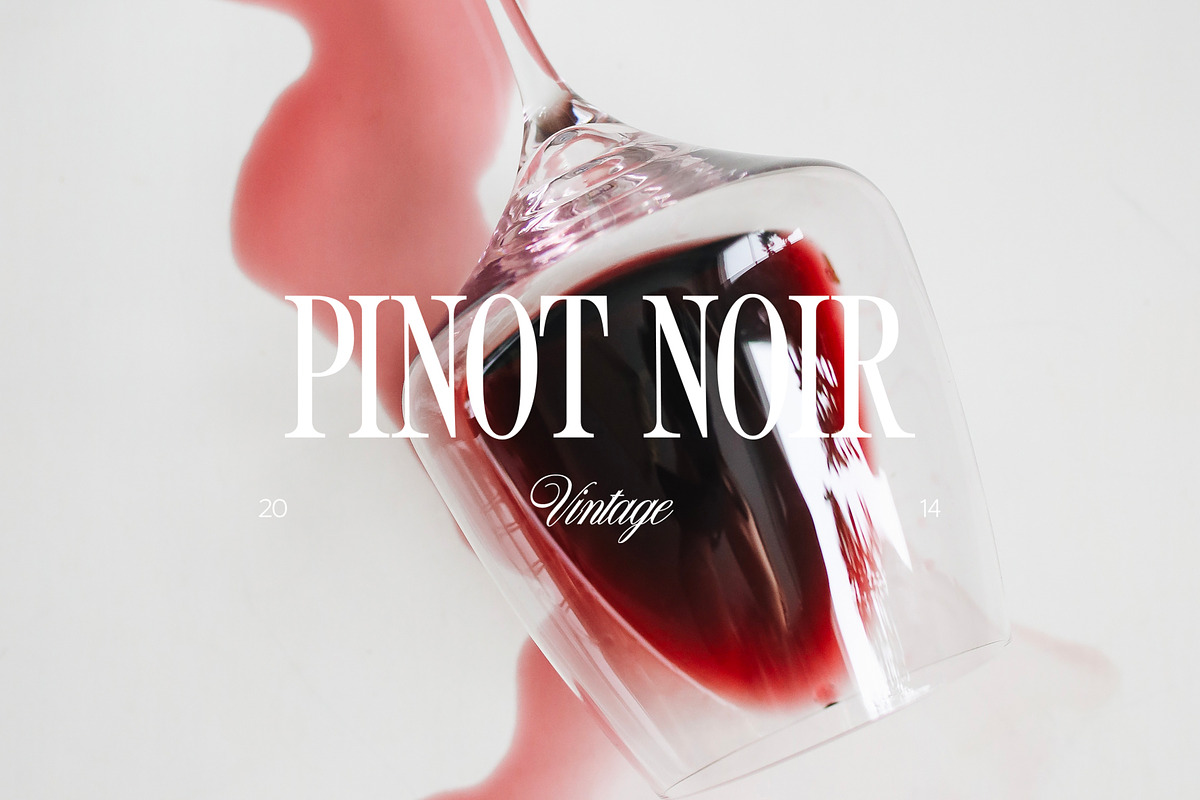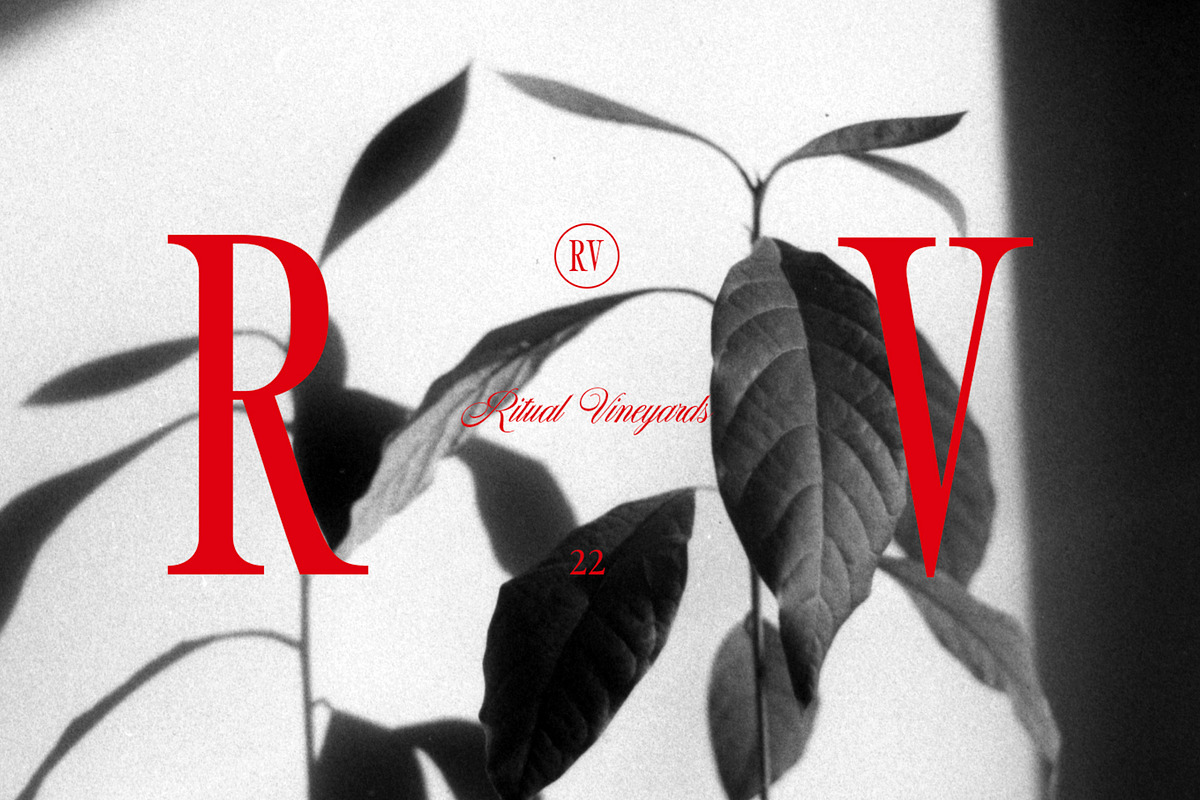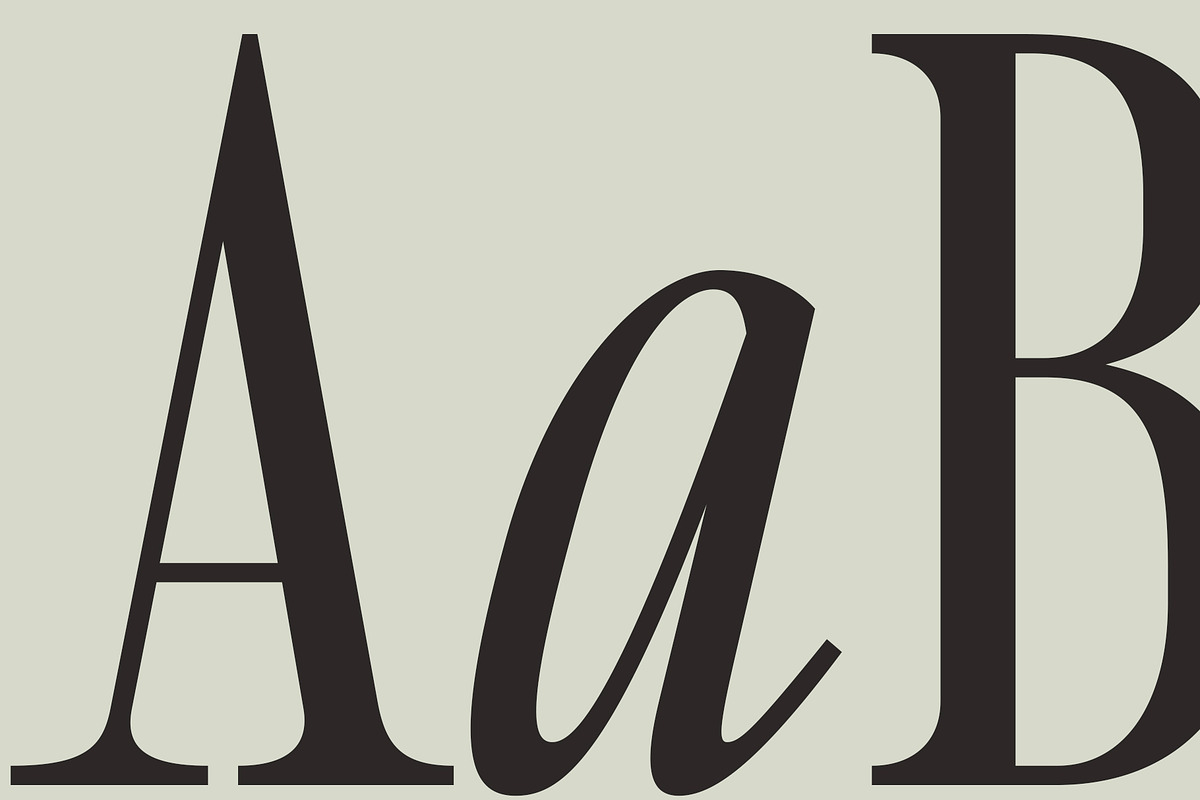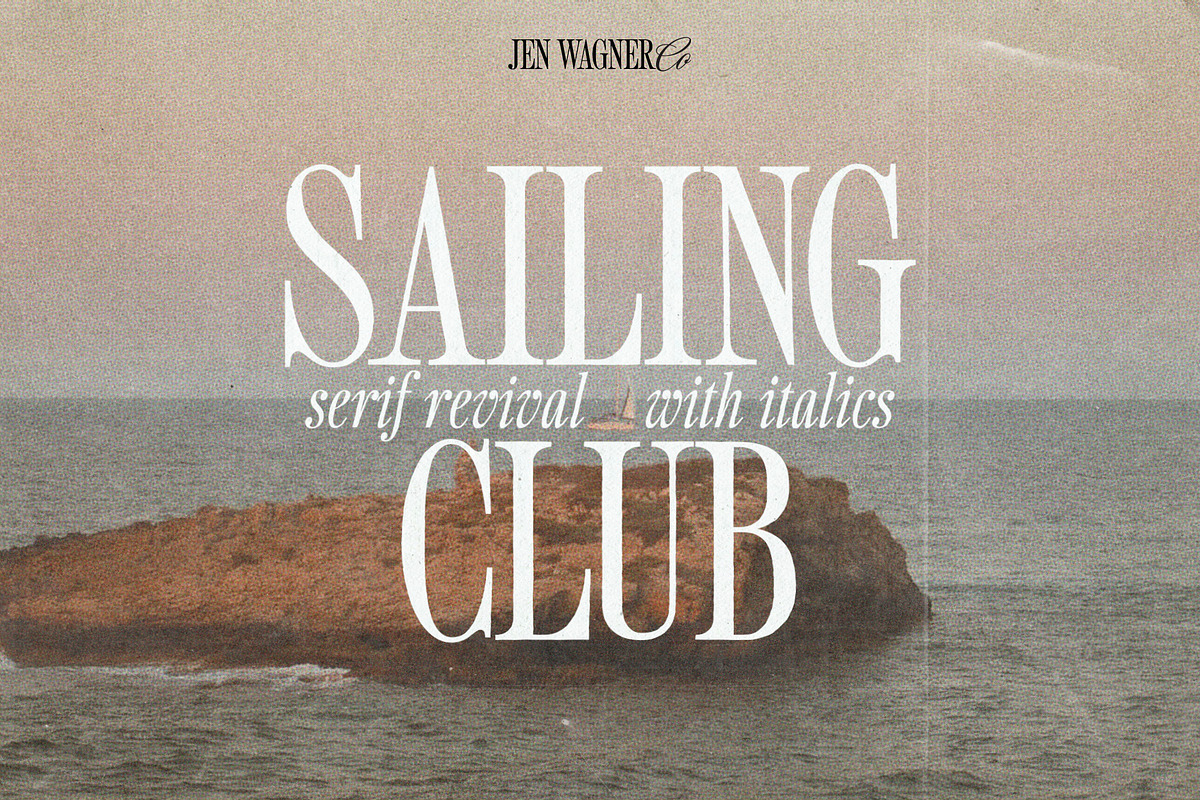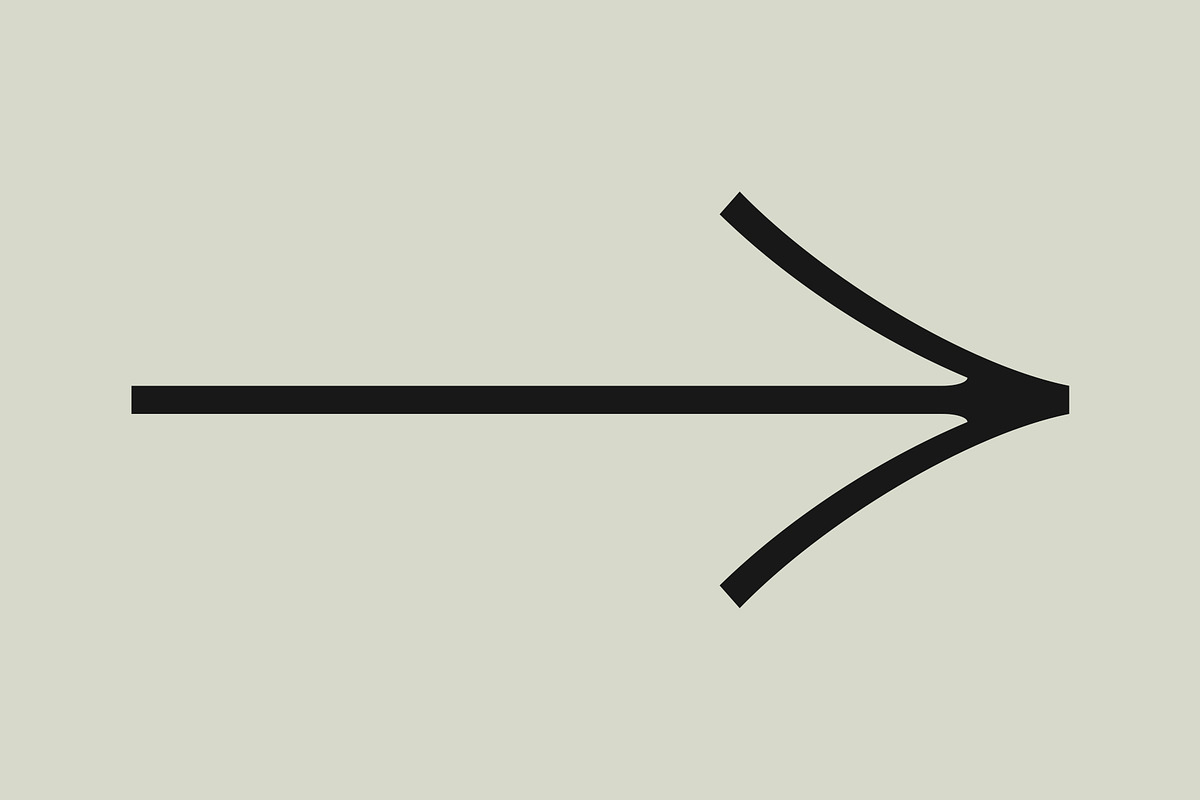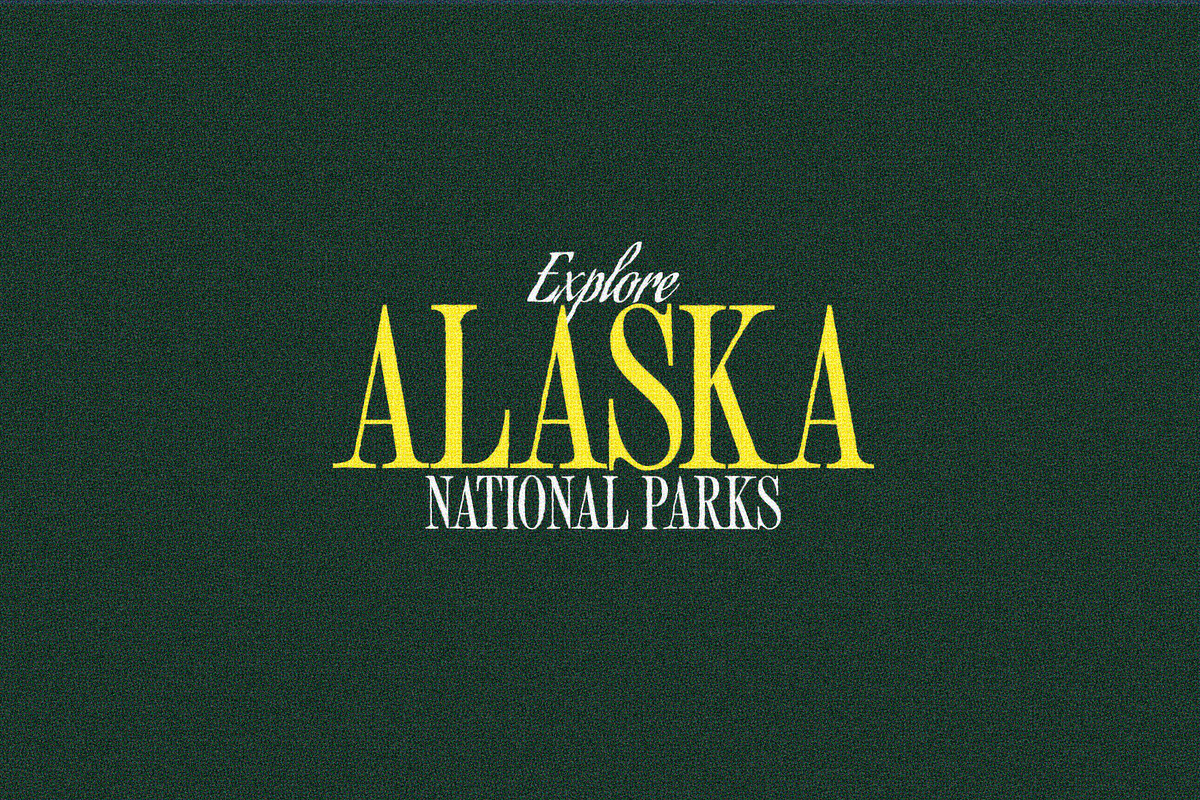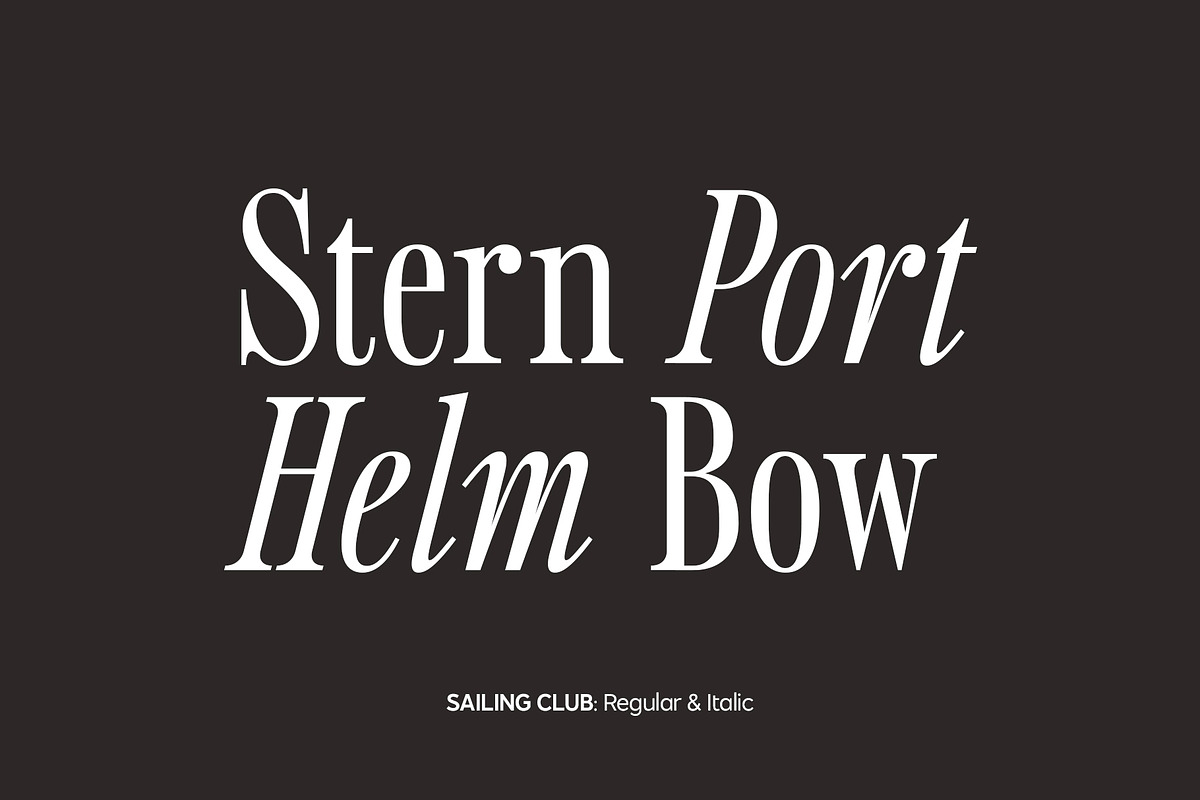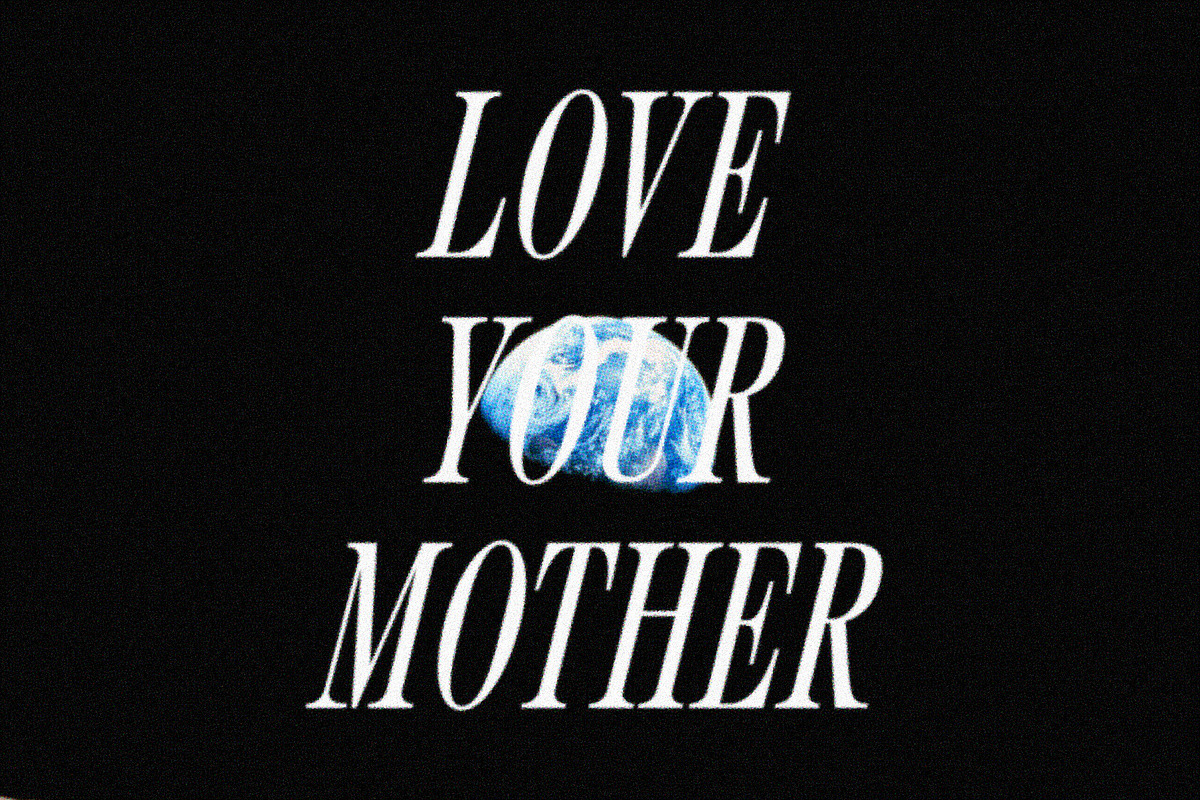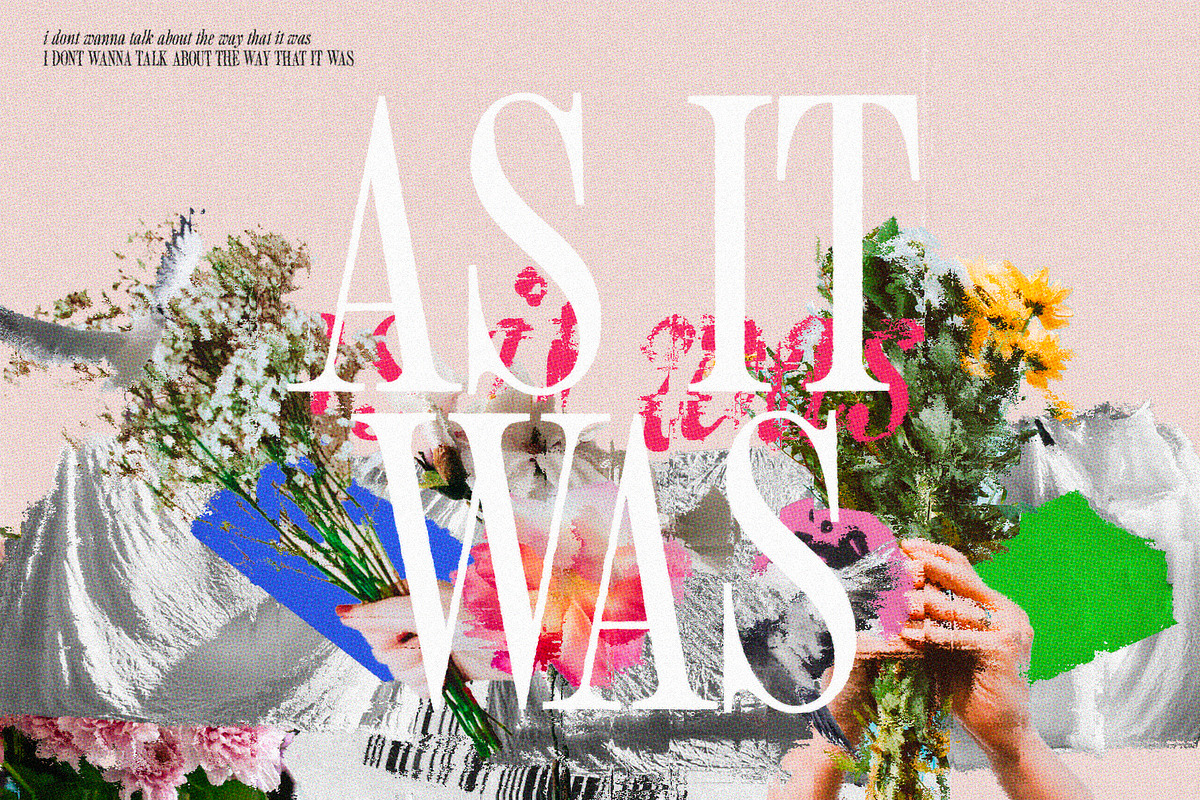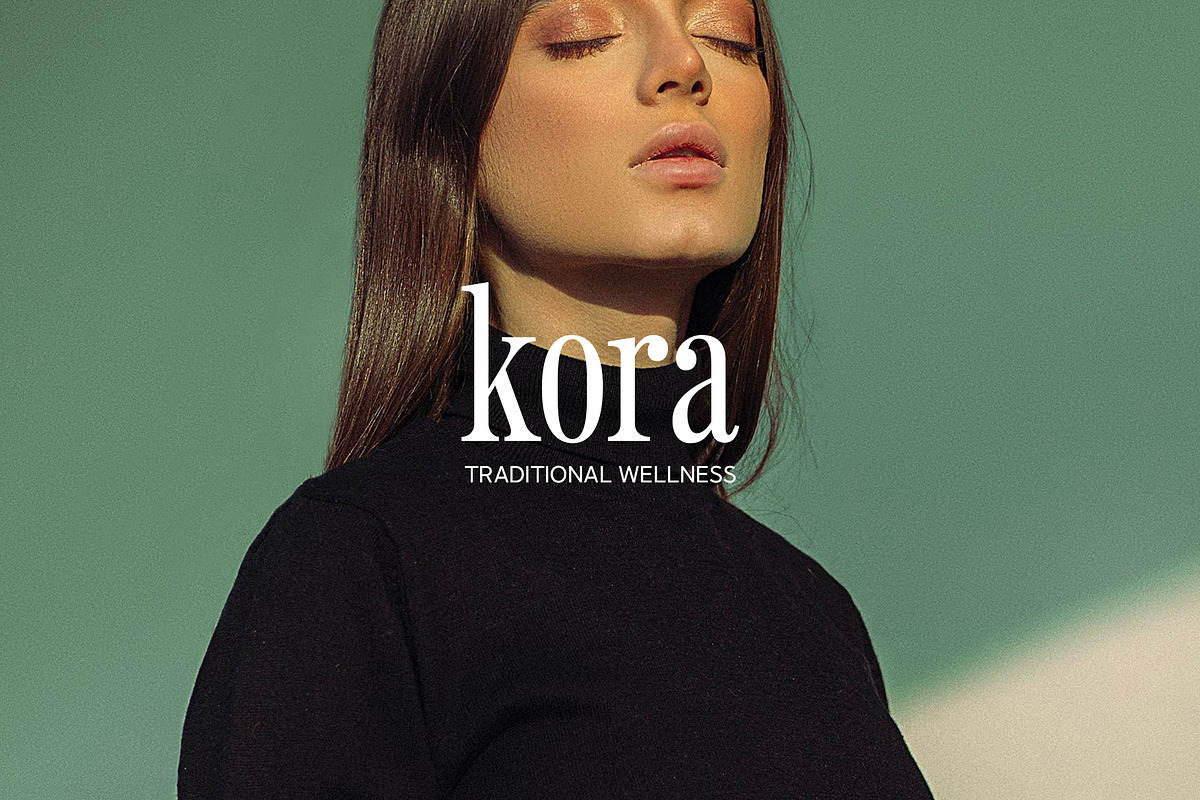
Sailing Club | Nostalgic Serif
Introducing Sailing Club – a brand new nostalgic serif revival that will make you want to steal your all mom's vintage college sweatshirts.
I've been loving how the 90s and early 00s are coming back, and I can't stop thinking about the sweatshirts you'd see Princess Diana wear around with bike shorts (plus, my dad gave me a vintage sweatshirt that is always and forever a go-to).
Sailing Club is a beautifully nostalgic upper and lowercase typeface that works best as a focal display text (think logos, headers, pretty quotes, calls to action, etc.).
The upper and lowercase give it great versatility, but I honestly just can't get over a tightly kerned all caps. It's too good.
I've also been loving combining the regular and italic, especially in cool, longer quotes (see the "Join Us" graphic, image #5)
One thing to note about Sailing Club is the letter spacing. It was spaced for clean reading and intentional balance, so I recommend setting the spacing a little tighter if you want to create the all caps display look found in many of these images (around -20 to -35 should do!).
- Sailing Club Regular (uppercase & lowercase)
- Sailing Club Italic (uppercase & lowercase)
- Foreign language support